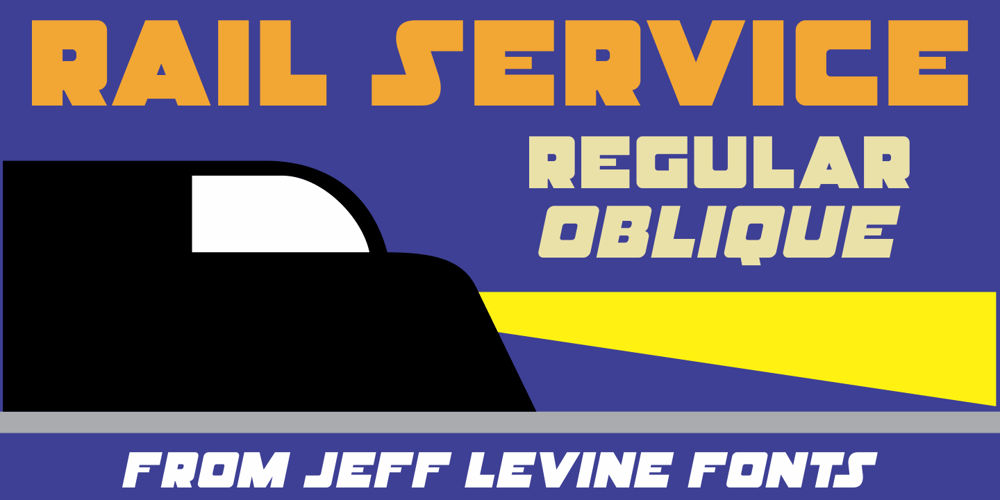
Rail Service JNL
Rail Service JNL font
Rail Service JNL Font Family was designed by published by Jeff Levine. Rail Service JNL contains 2 styles and family package options. The extra bold, squared Art Deco sans hand lettering found on a 1940s travel poster for the Pennsylvania Railroad inspired Rail Service JNL, which is available in both regular and oblique versions.